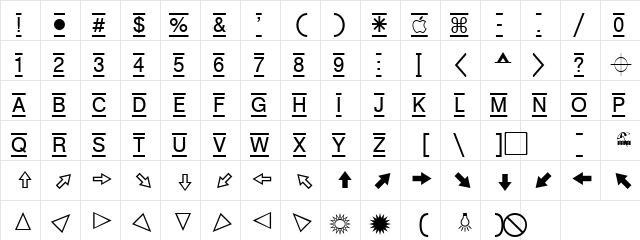
Zeal Regular
Design Context for Zeal Typeface
Zeal offers clean, dependable letterforms without strong stylistic allegiance, making it a practical choice for designers who need flexibility.
Pro Tip: Use Zeal in both headline and body roles to test its range before committing to a single application.